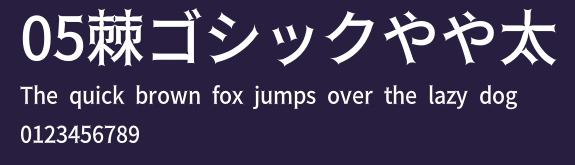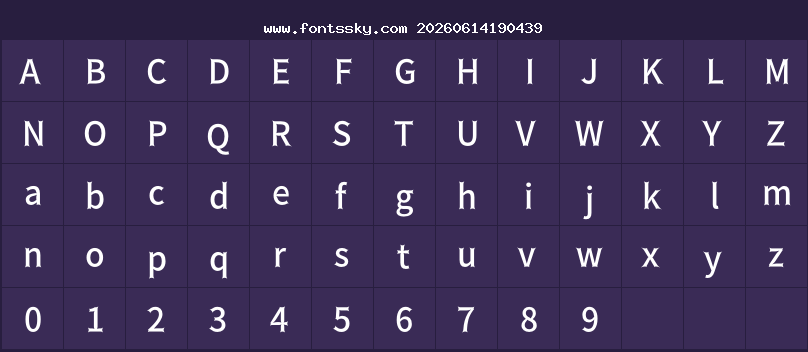
05棘ゴシックやや太 Preview
• Font Name: 05棘ゴシックやや太
• PostScript Name: 05TogeGothic-SemiBold
• Character Count: 8310
About 05棘ゴシックやや太.otf
05棘ゴシックやや太.otf is a modern, elegant sans-serif font designed for ultimate readability and visual harmony. Perfect for branding, headlines, web design, and print materials.